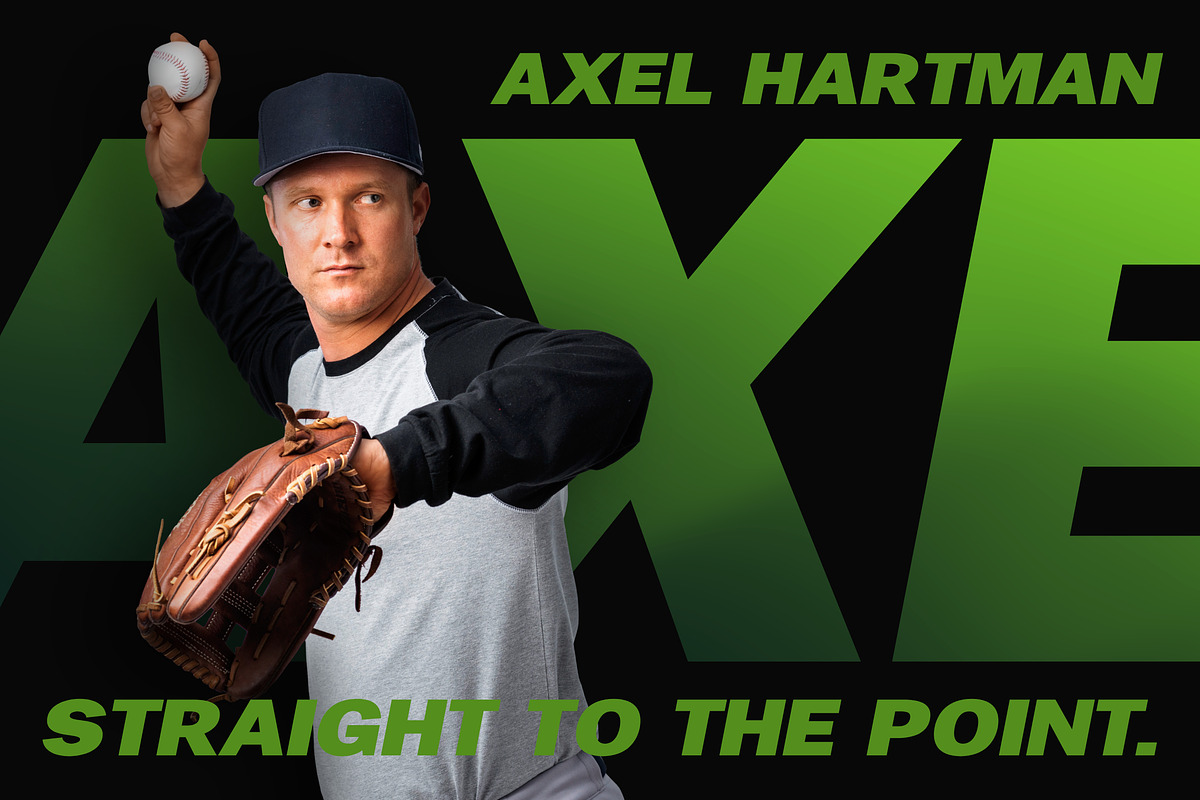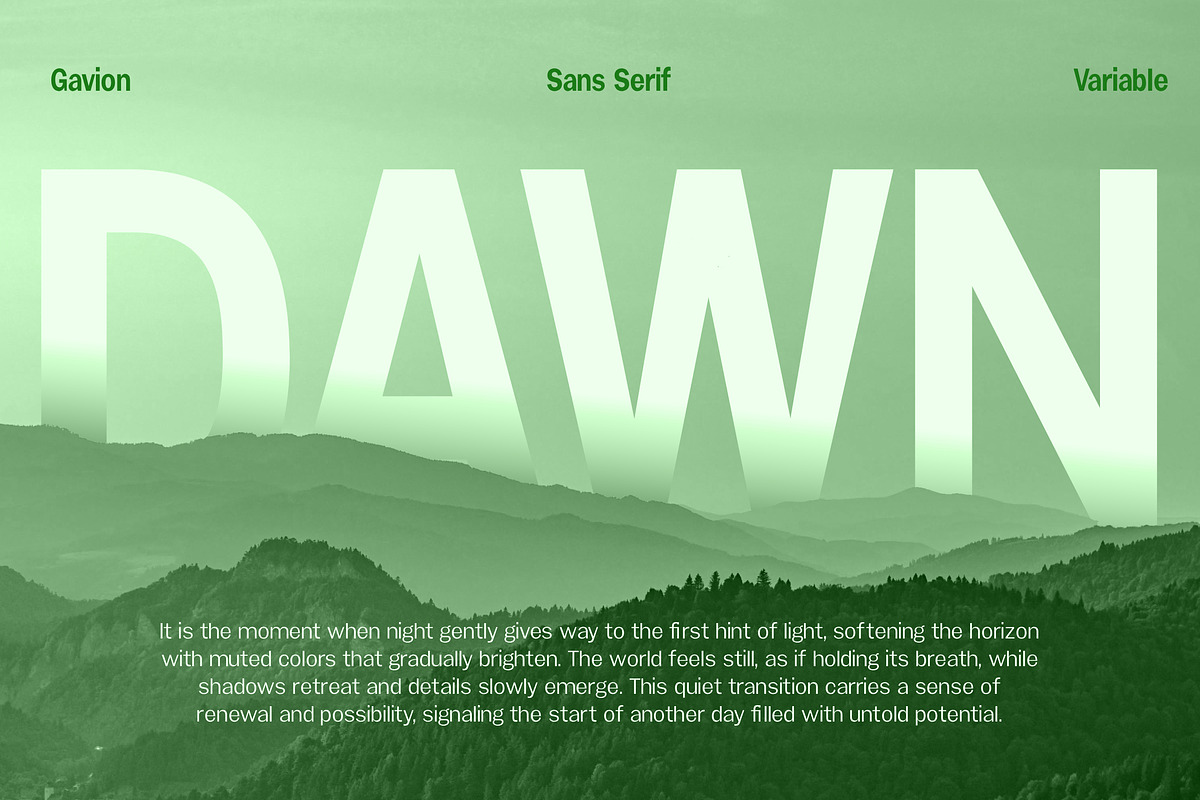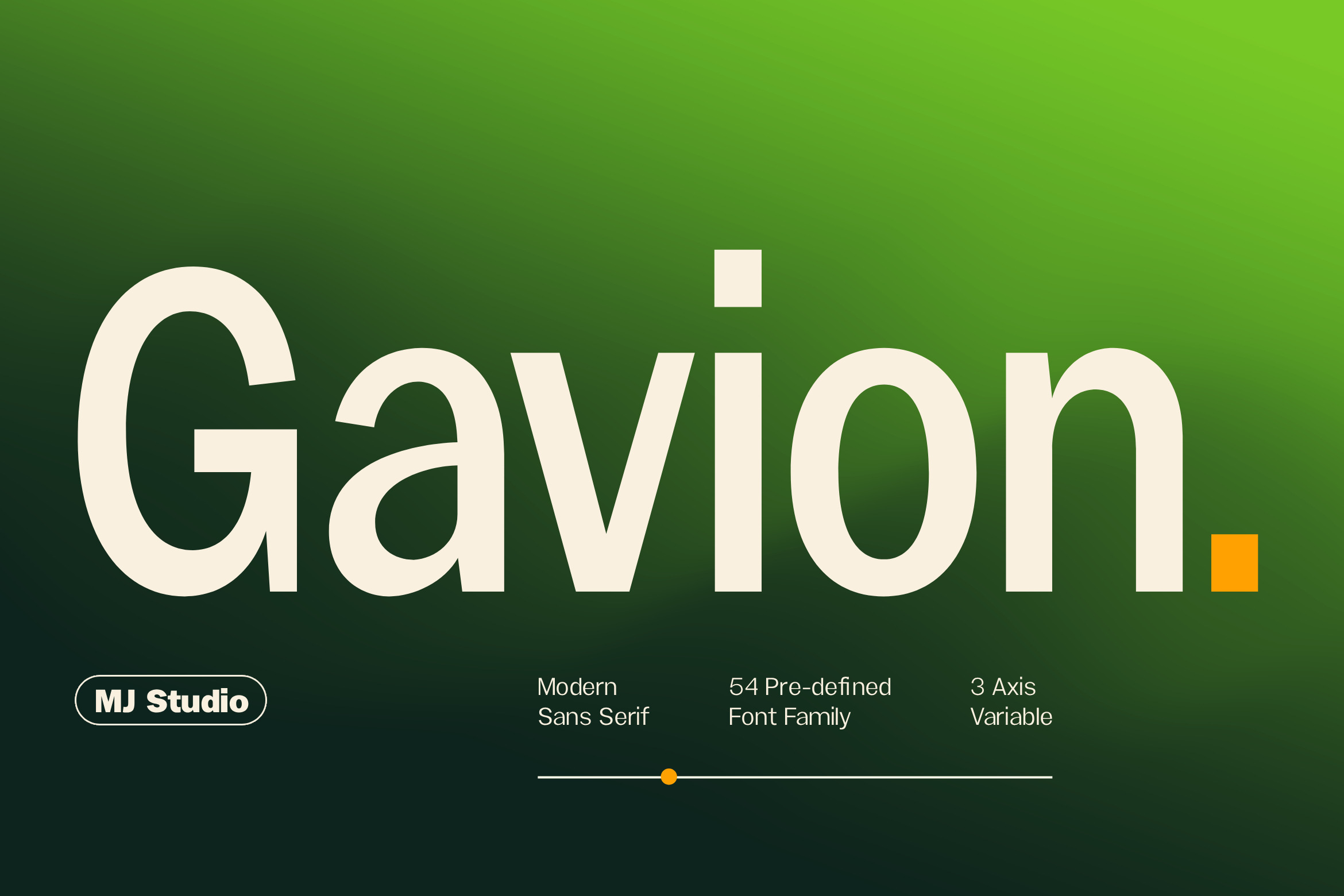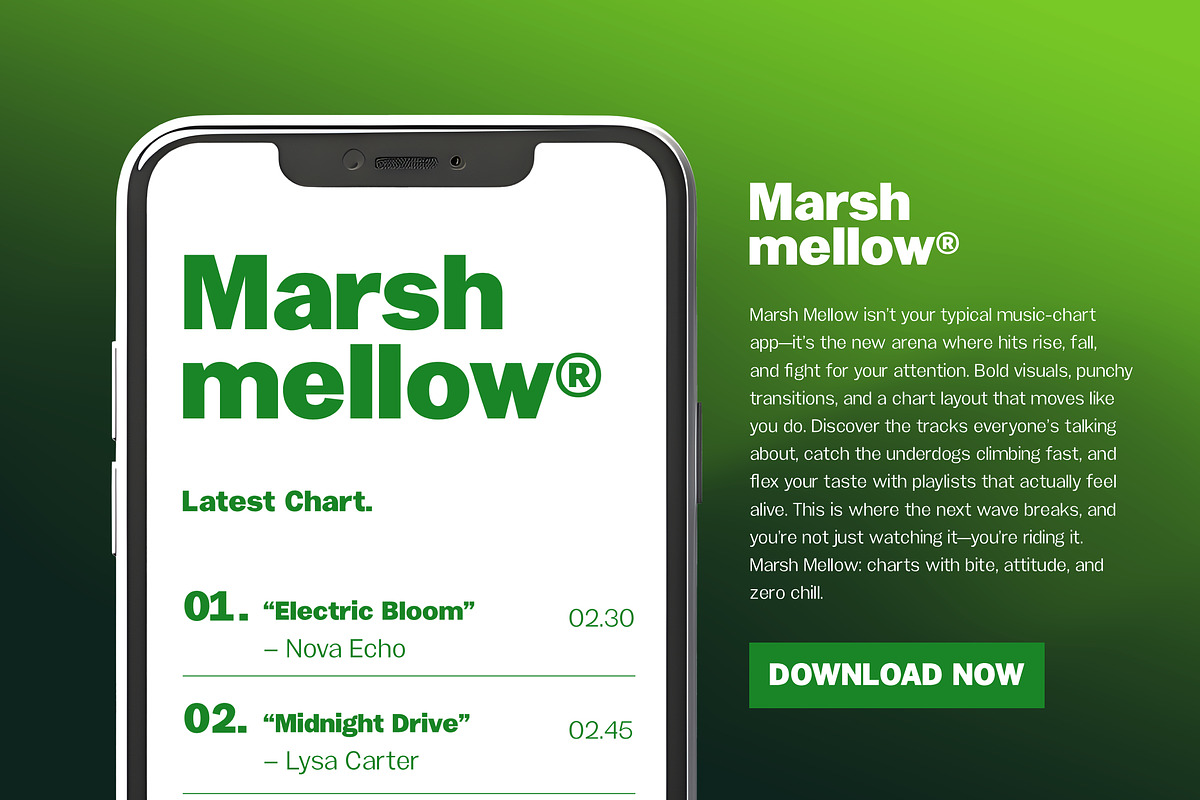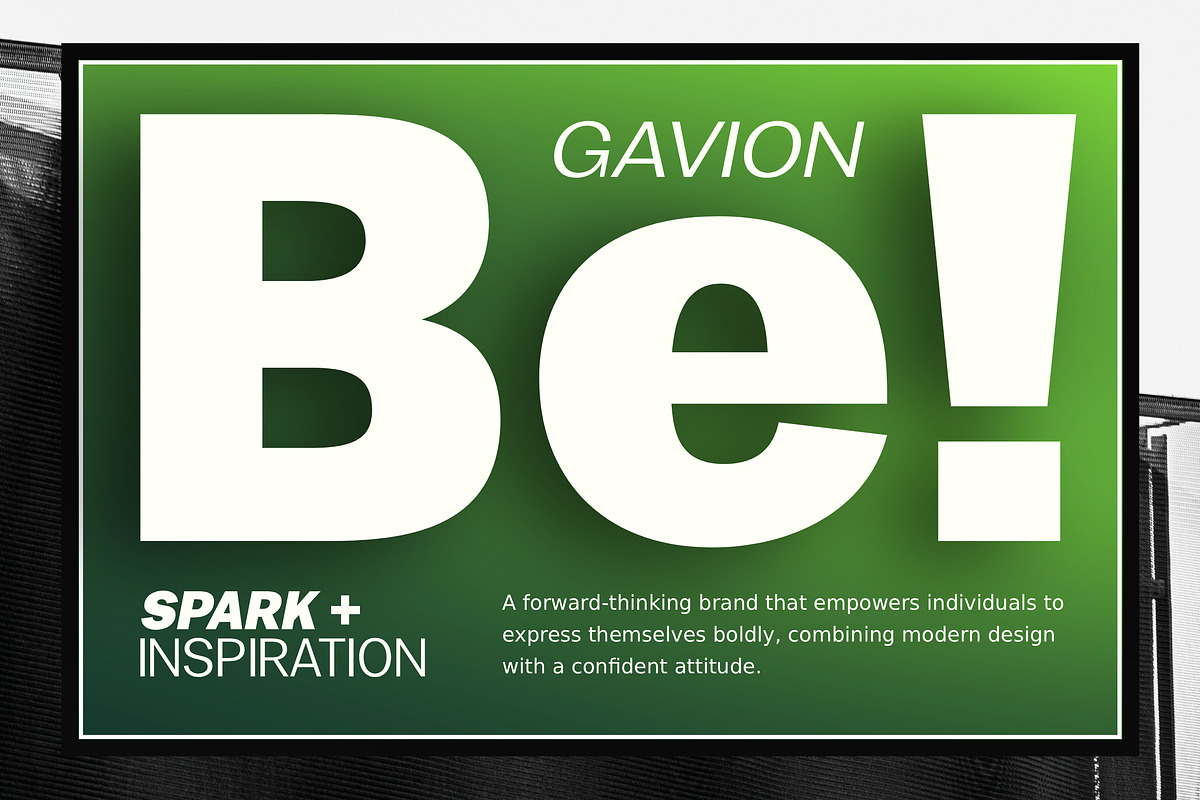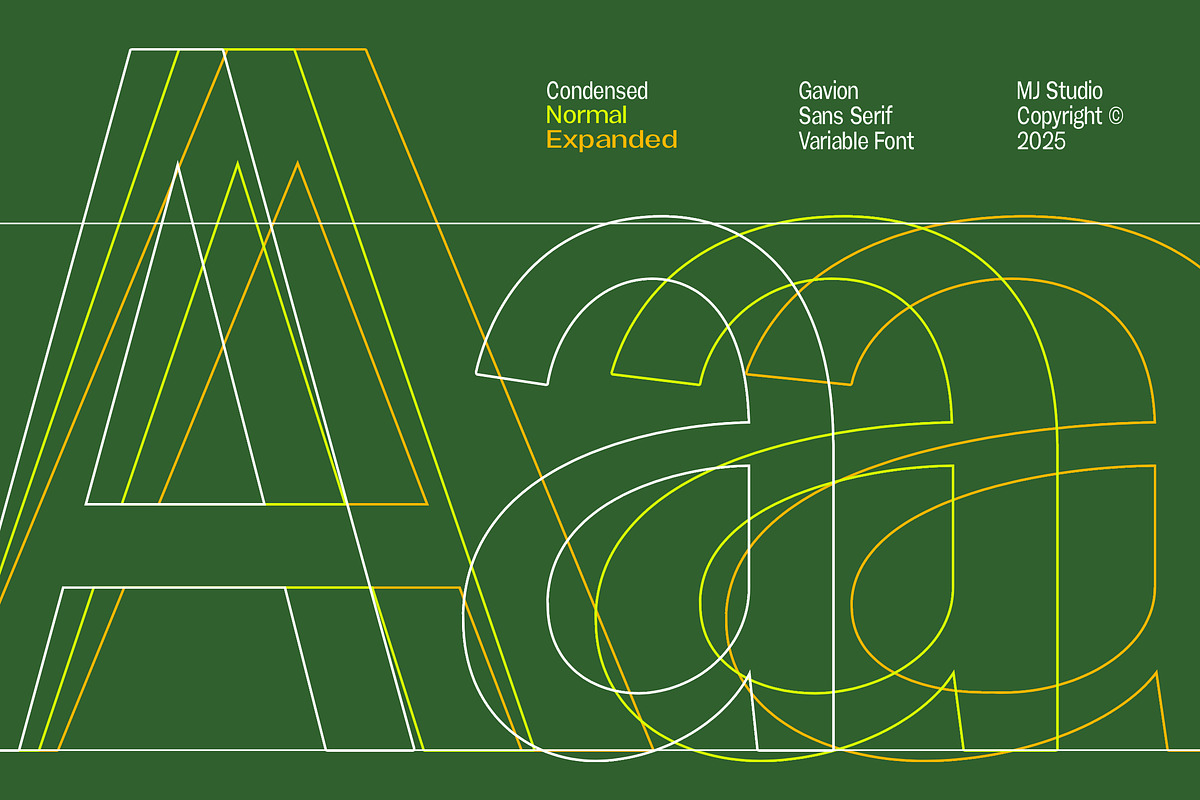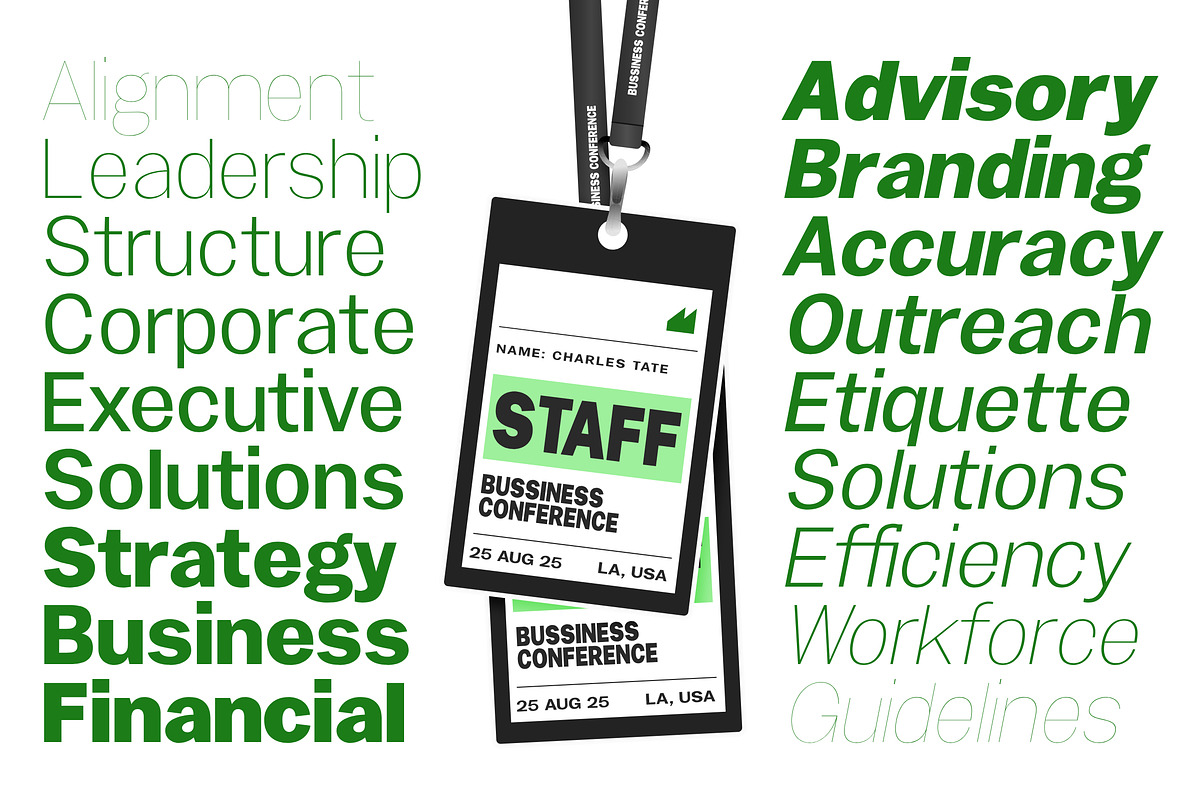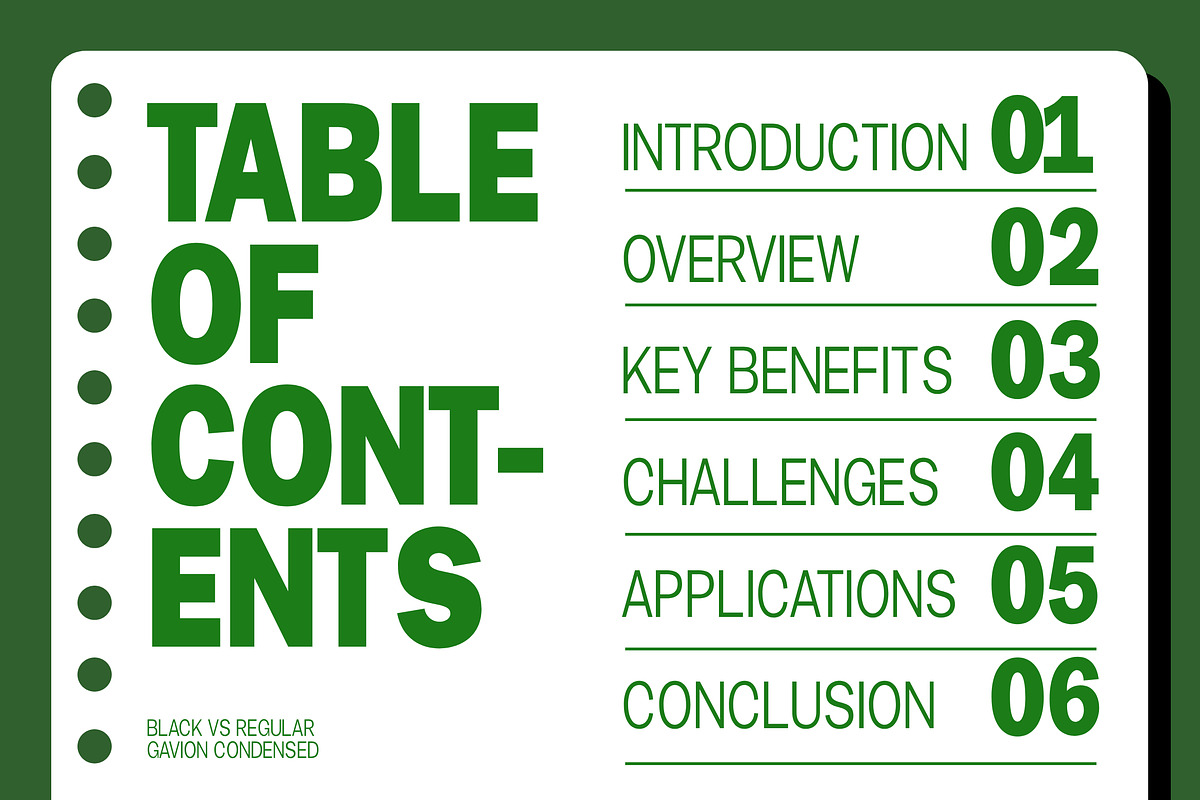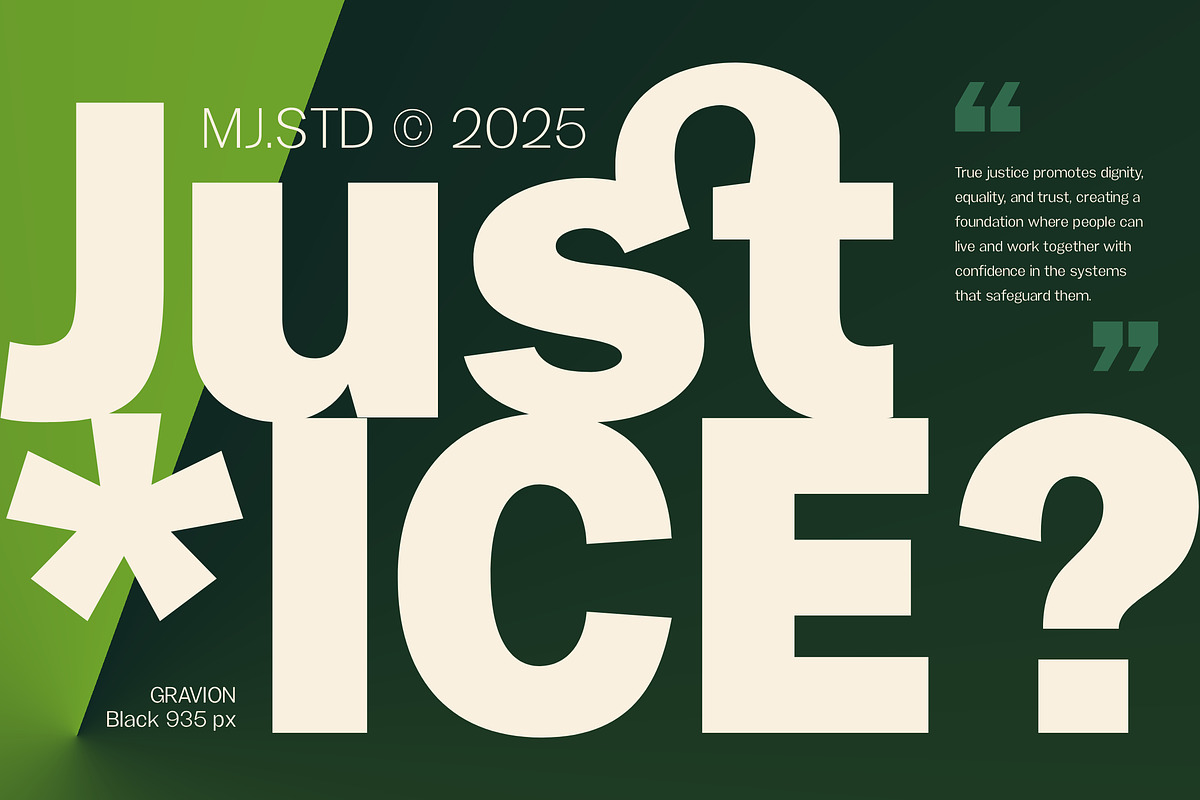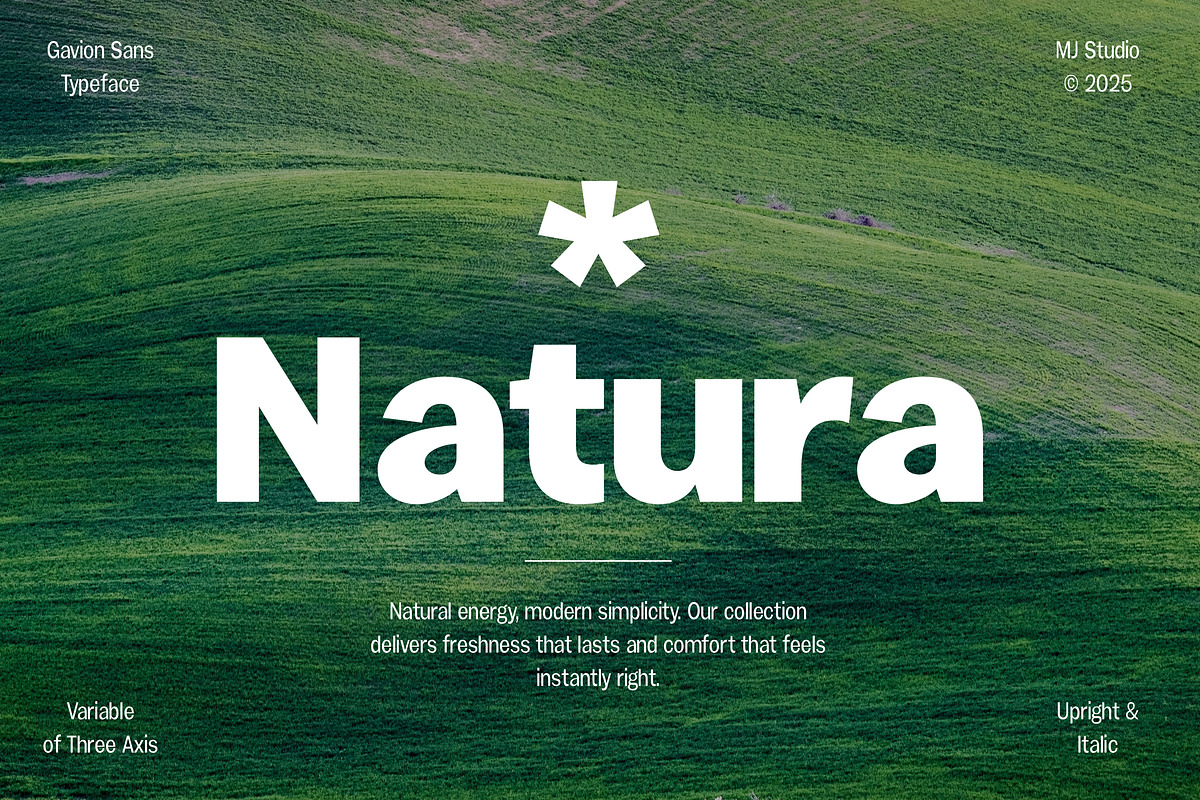
Gavion - 55 Font
Gavion is a modern sans serif that combines clean geometry with subtle humanist warmth, creating a look that’s both contemporary and highly readable. With 54 styles and a 3-axis variable font, Gavion offers exceptional flexibility for branding, editorial design, UI, and high-impact visual campaigns. Its organic touches add personality without sacrificing professionalism—perfect for brands that want a modern, confident, and distinctive presence.